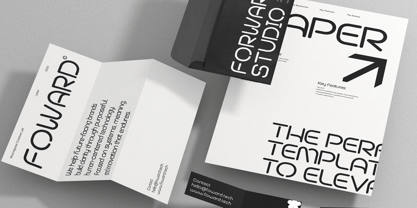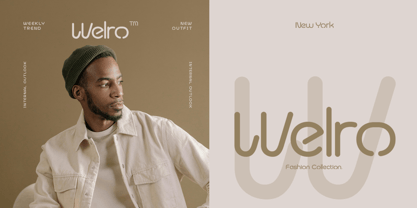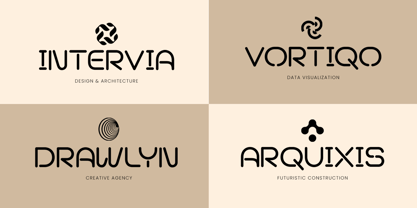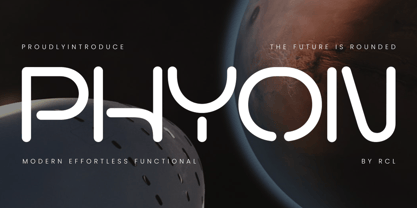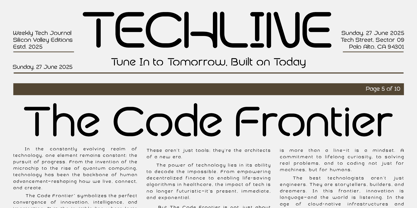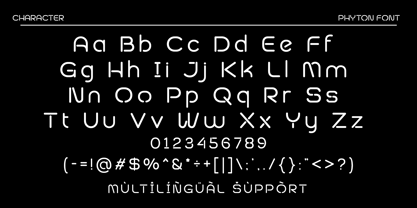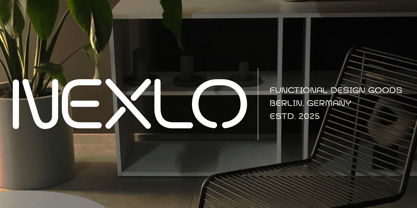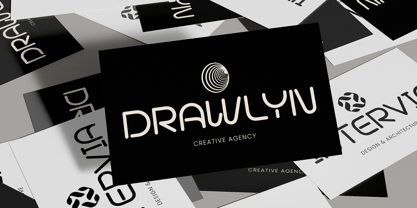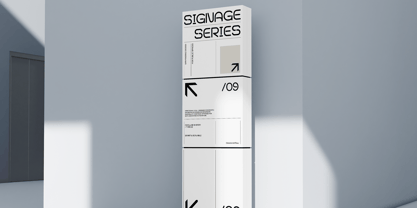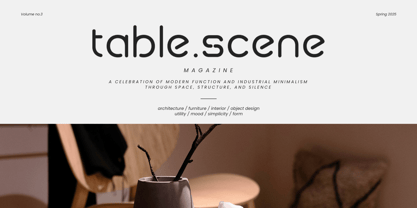
Phyon
by Jafar07
The Phyon Font Family was designed by Bakhrudin Ja'far and published by Jafar07. Phyon contains 2 styles and family package options.
Phyon – a futuristic rounded sans serif font designed for the digital age. Phyon combines sleek geometry with modern, effortless curves to deliver a typeface that feels both professional and visionary. Inspired by cutting-edge technology, innovation, and clean industrial design, every character in Phyon is crafted to bring a sense of progress and clarity. Whether you’re working on UI/UX design, branding for a startup, digital interfaces, or futuristic posters, Phyon offers the perfect balance of readability and personality. Its smooth, modern forms make it ideal for product presentations, tech ecosystems, sci-fi graphics, space-inspired visuals, or any creative project that looks ahead.